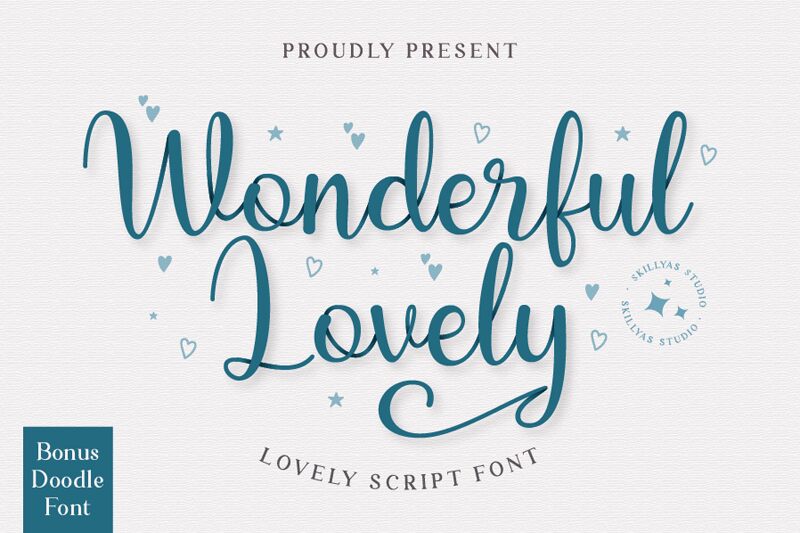
Wonderful Lovely, designed by skillyasstudio.com, is a delightful and charming font that exudes a cute calligraphy style. With its semi-light weight, this font adds an elegant touch to any project. Suitable for wedding invitations, greeting cards, and feminine branding, the Wonderful Lovely font brings a whimsical feel to your designs. Its playful yet sophisticated nature also makes it perfect for children's books, fashion blogs, and beauty products. Embrace the enchanting curves of this typeface and let your creativity flow with Wonderful Lovely.
Wonderful Lovely